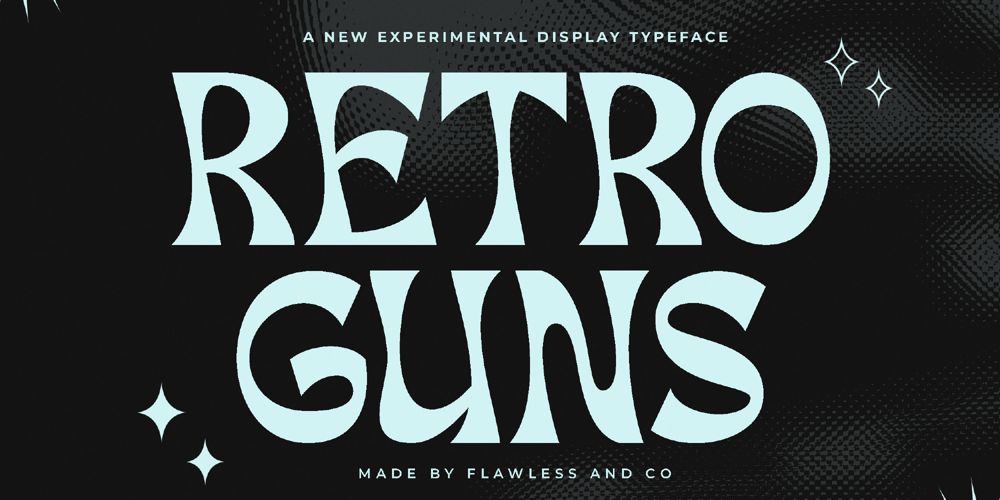
Retro Guns Font Family was designed by Achmad Yani and published by Flawlessandco. Retro Guns contains 1 styles and family package options. Introducing “Retro Guns” – A Display Typeface. Step back in time and embrace the nostalgia of the past with “Retro Guns,” a captivating display typeface that embodies the essence of vintage charm.There’s some connected letters and some alternates that suitable for any graphic designs such as branding materials, t-shirt, print, business cards, logo, poster, t-shirt, photography, quotes .etcThis font support for some multilingual. Also contains uppercase A-Z and lowercase a-z, alternate character, numbers 0-9, and some punctuation.If you need help, just write me! Thanks so much for checking out my shop!